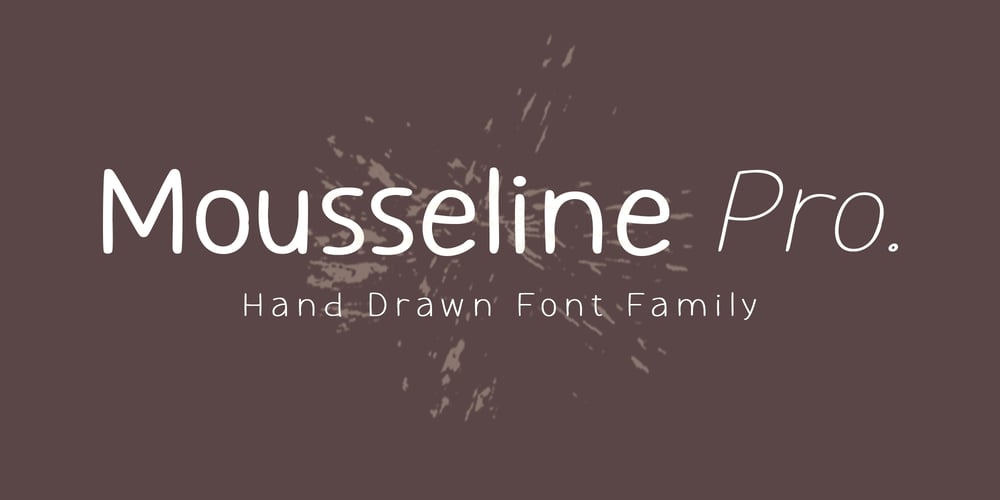
Mousseline Pro
Mousseline Pro font
Mousseline Pro Font Family was designed by Salak Tung and published by fontcastle. Mousseline Pro contains 1 styles and family package options. Mousseline Pro is hand drawn font a fresh, sans serif font family. Simple and adaptable, this font will make each of your designs look great. Have fun with this beautiful font and explore its endless variations. The typeface is versatile and can be successfully used in Magazines, Posters, Branding, Websites etc.